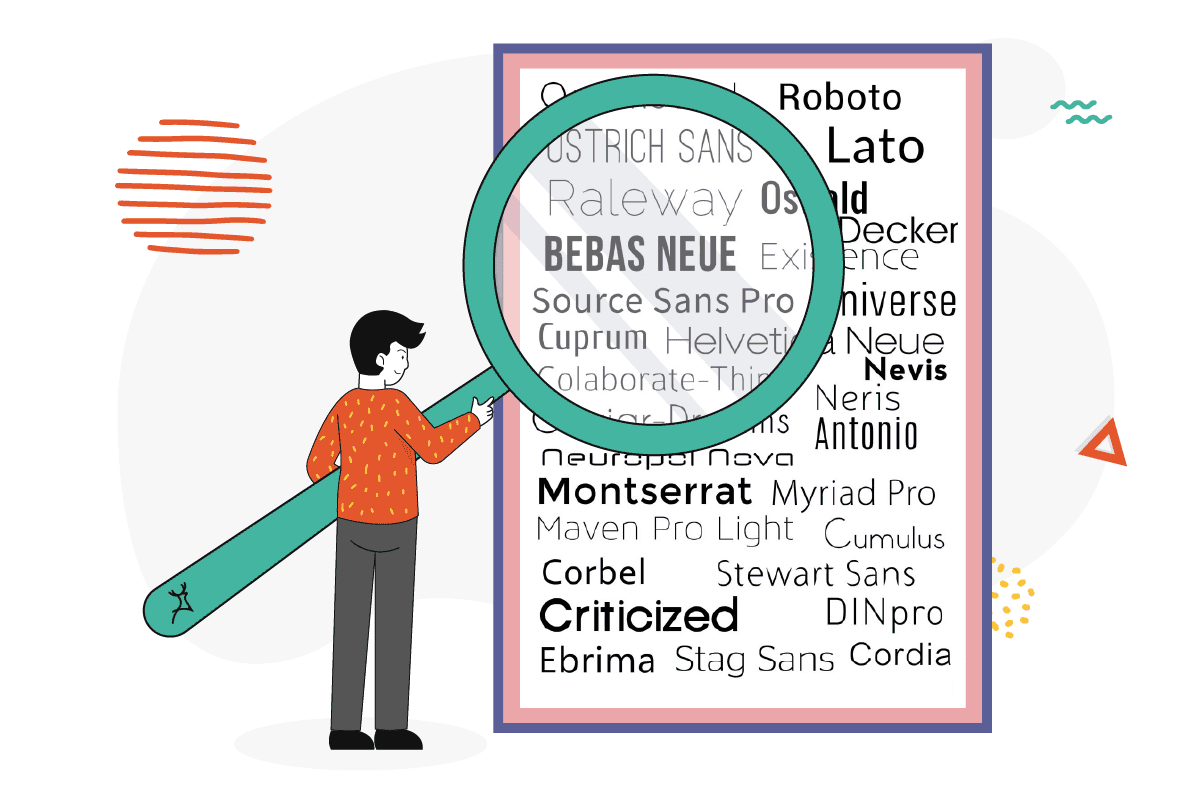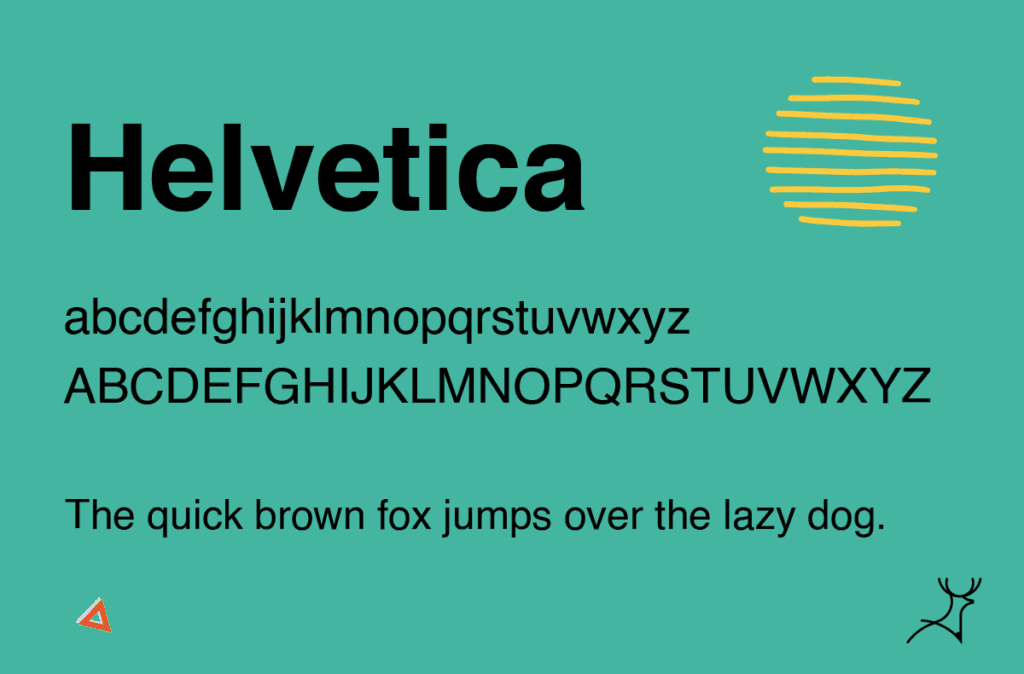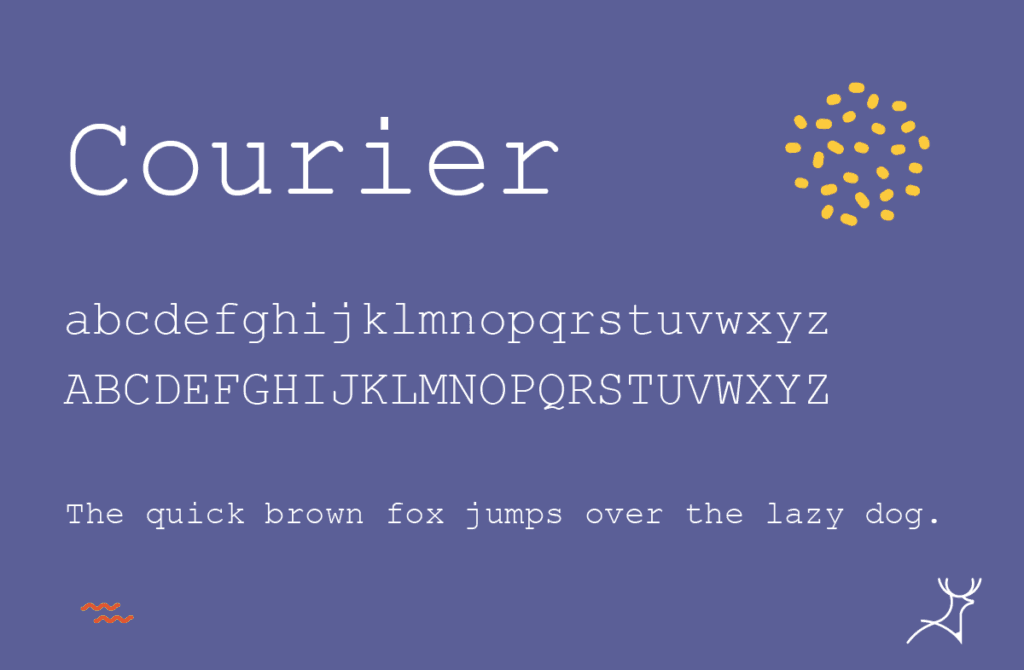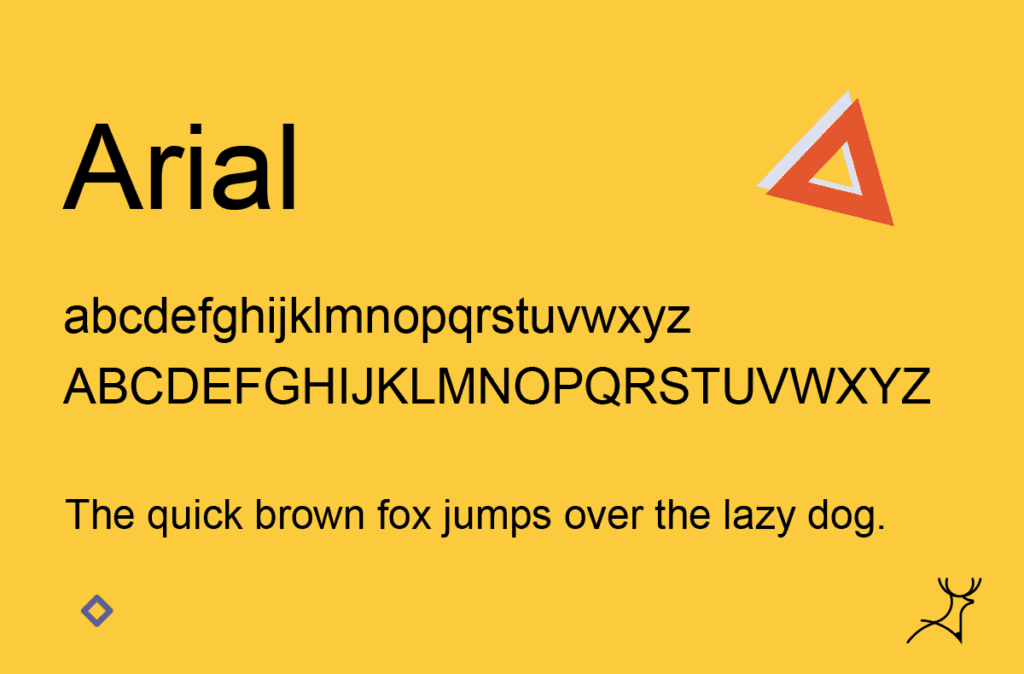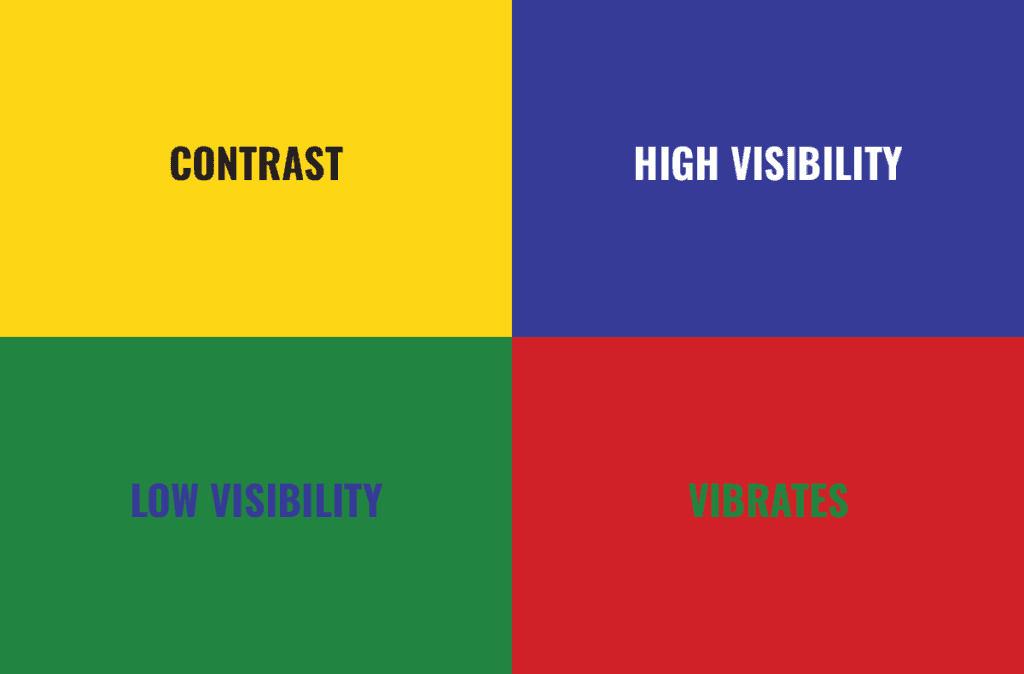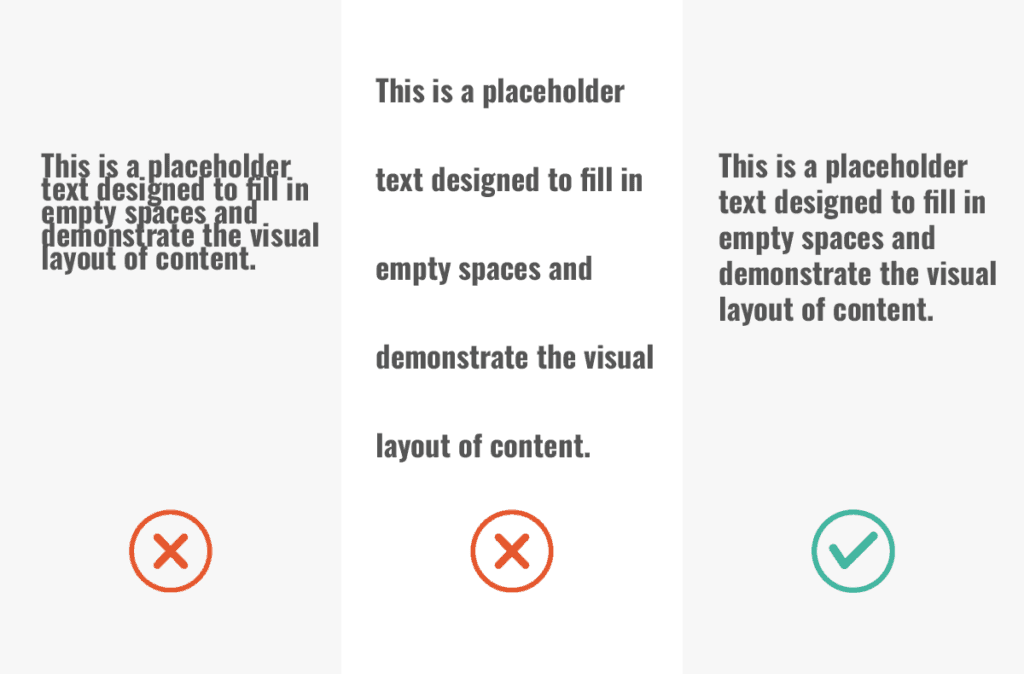
Enhancing the user experience with accessible typography: choose a font for accessibility
Let’s face it, the digital world should be open to everyone.
Imagine crafting a stunning website, only for a segment of your audience to struggle navigating it because of inaccessible design choices.
That’s a missed opportunity, not just for your audience, but for your brand too.
At the core of web and marketing agencies is the drive to connect, engage, and convert. To do this effectively, your websites need to be accessible to all.
And that means making sure that even those with disabilities like dyslexia or colorblindness can interact with your content seamlessly.
Accessible web design is about inclusion and maximizing your reach. We’ve explored various aspects of web accessibility, from color choices to navigation tweaks, in our past guides.
Today, we’ll dive into a frequently overlooked aspect of accessible web design: fonts.
How do you choose fonts that are both brand-appropriate and accessible?
Let’s explore how accessible typography can make your website not just visually appealing, but inclusive and user-friendly for everyone.
Why accessible typography matters
Accessible fonts go beyond accommodating special needs.
They also enhance the experience for all users.
Some fonts can be challenging to read, even for the average person without a reading disability.
Choosing the right fonts can improve your site’s readability.
This makes your site easier to understand for everybody, whether or not they have visual impairments.
It’s a great way to boost your site’s overall user experience.
Why simpler fonts are the best fonts for websites
When was the last time you saw a website use complicated scripts and calligraphy?
It might be way back in the early 2000s.
This is because web designers have figured out that simple fonts are the best to use for websites.
Fonts with many unnecessary decorations can be distracting, hard to read, and make it easier for users to confuse letters with one another.
When your site is harder to read, it slows users down.
They might become impatient and just leave your site.
After all, who would want to spend so much time just trying to read a pos with small and unreadable text on a website?
They might just click away from your site and head on to your competitors.
As much as possible, you want to choose a font that is clear and straightforward for everyone, ensuring a seamless reading experience.
Choosing from the widely available, accessible fonts
When you look it up online, there are now a variety of accessible fonts for you to choose from.
You will want to go for fonts that prioritize readability and clarity.
These are often sans-serif fonts, as they have fewer decorative elements and no serifs to confuse readers with low visibility.
However, there are also some serif fonts with fewer embellishments and more spacing that make it easier to identify each letter.
Here are some examples of accessible fonts:
Helvetica
The Helvetica font has moderate line spacing and high legibility.
This is an ideal font for print, branding, advertising, and other professional uses.
It is commonly used as body text in marketing materials and websites
Courier
Courier is a slab-serif font that mimics a typewriter.
It is used as the industry standard for screenplays and scripts.
This is because it has monospacing, meaning each letter and character in this font occupies the same amount of horizontal space.
The distinct strokes for each letter and wide spacing make it easier to read this font.
Google has created a new version of this font, Courier Prime, which has crisper serifs and is less rounded, making it easier to read.
Arial
Arial is a reliable, accessible font that most people use, whether online or in print given how convenient it is.
It comes pre-installed in most systems as a default font, has moderate letter spacing, and high legibility.
When all else fails, you know that you can always come back to the simple and sleek look of Arial that matches any design while staying legible.
Consider your font size
Other than choosing the right font, you should also be using adjustable font sizes to accommodate users with varying visual abilities.
The WCAG recommends a minimum font size of 16px and shouldn’t go below 12px.
It would be ideal to allow people with low or limited visibility to zoom into your website up to 200 percent without loss of content or functionality.
Nowadays, it’s easy to provide options for users to increase or decrease text size according to their preferences.
Color contrast is key
- There are many different fonts online that are considered to be accessible. They are usually sans-serif fonts, but you can also use serif fonts with good spacing and defined line strokes.
- Other than choosing the right font, it is also important to consider font sizing, color contrast, and spacing, as they can affect the font’s readability.
- Avoid using texts on top of images or textured backgrounds, as it can make it cluttered and harder to read.
- Don’t forget to add alternative text to make sure your text and images are accessible to screen readers.